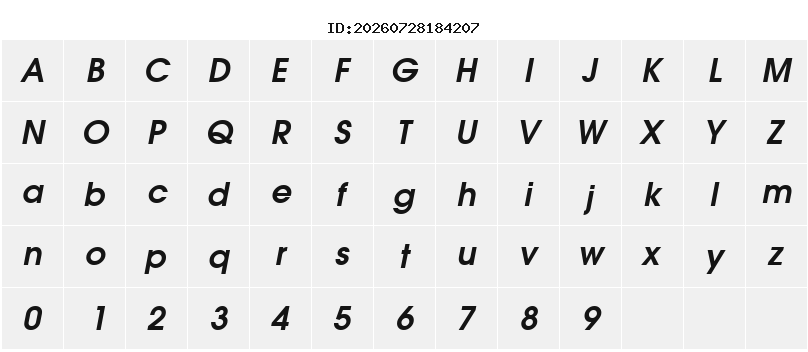
ITC Avant Garde Gothic Demi Preview
• Font Name: ITC Avant Garde Gothic Demi
• Font Style: Oblique
• Font ID: Hewlett-Packard: ITC Avant Garde Gothic Demi Oblique: Version 1.3 (Hewlett-Packard)
• Full Font Name: ITC Avant Garde Gothic Demi Oblique
• Version: Version 1.3 (Hewlett-Packard)
• PostScript Name: AvantGarde-DemiOblique
ITC Avant Garde Gothic Demi.ttf is a modern, elegant sans-serif font designed for ultimate readability and visual harmony. Perfect for branding, headlines, web design, and print materials.